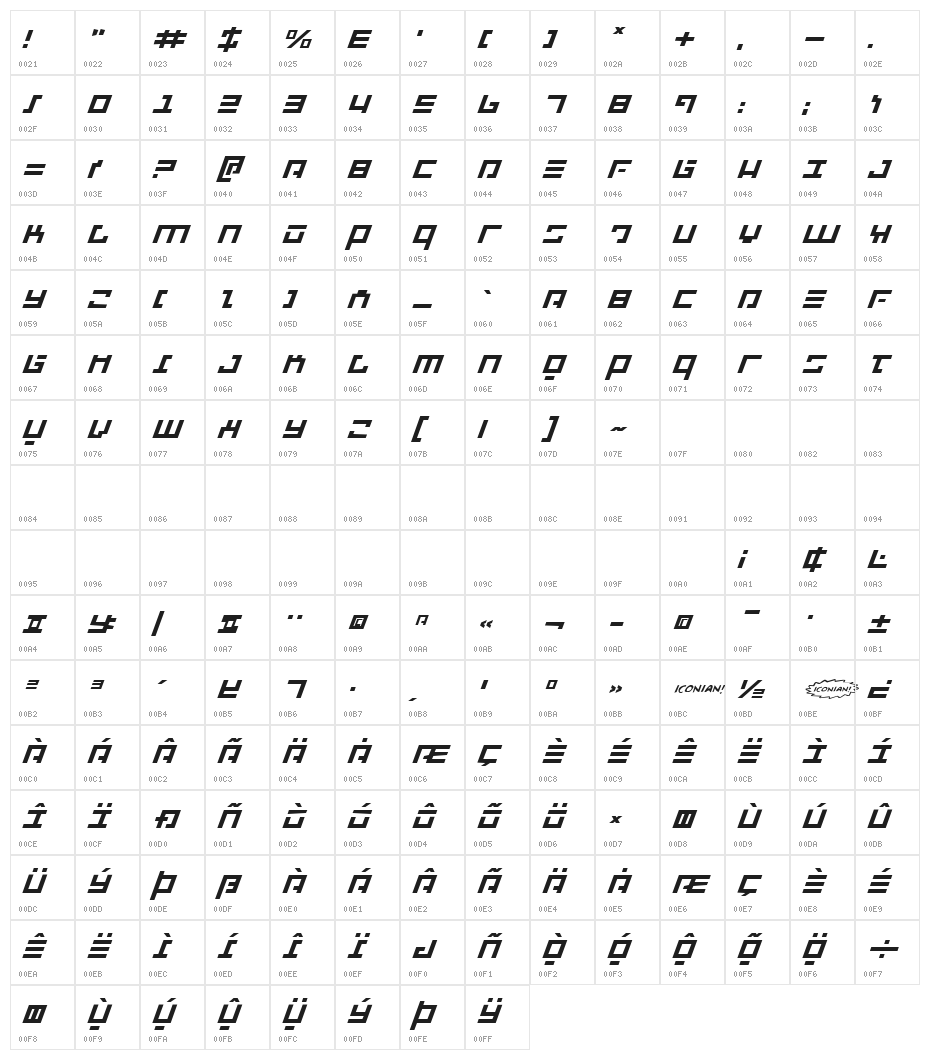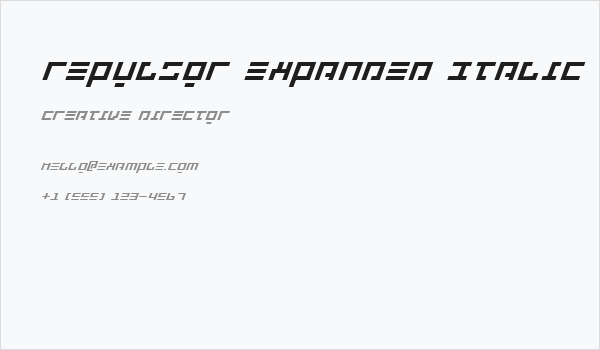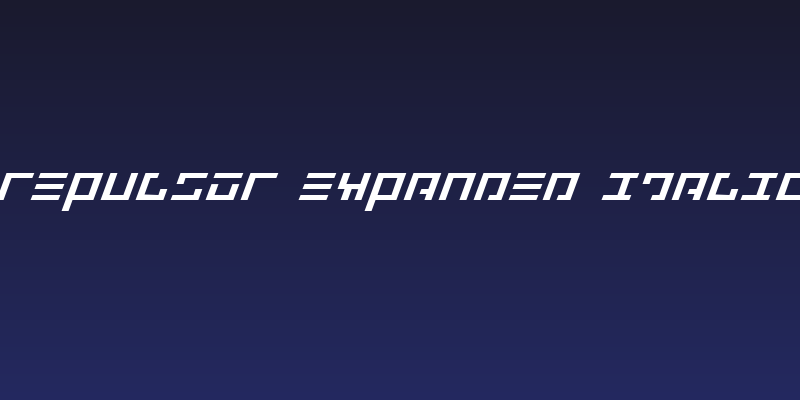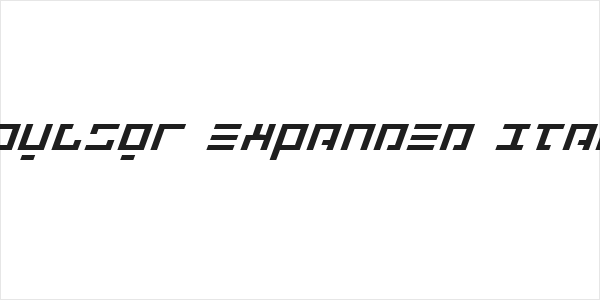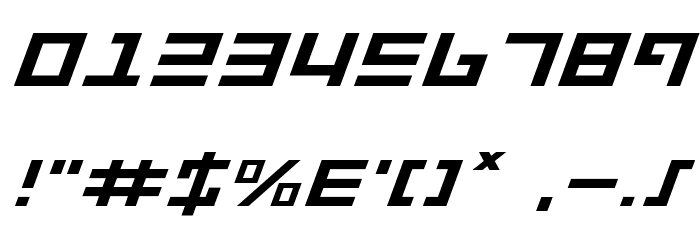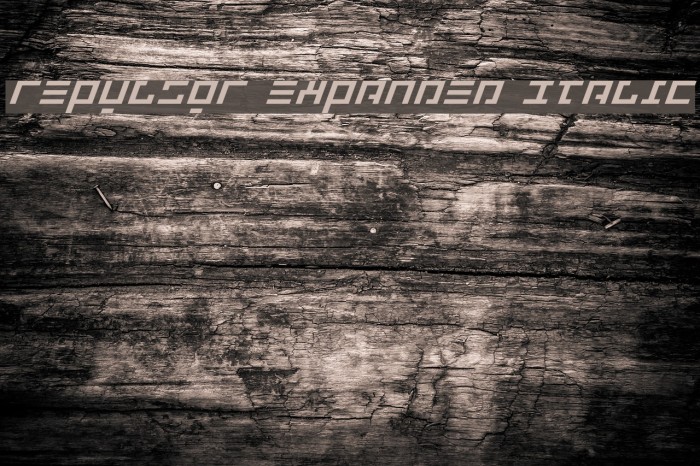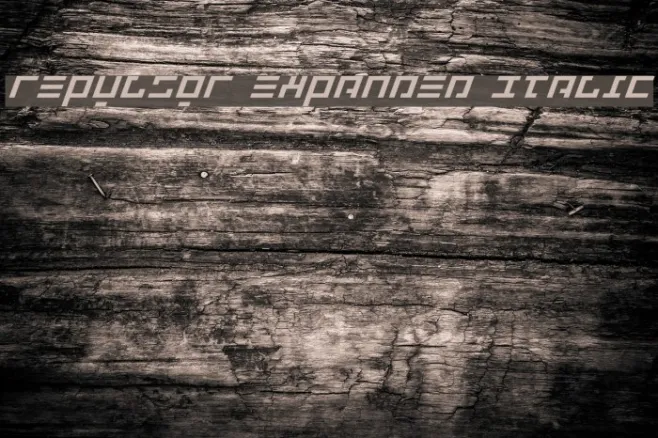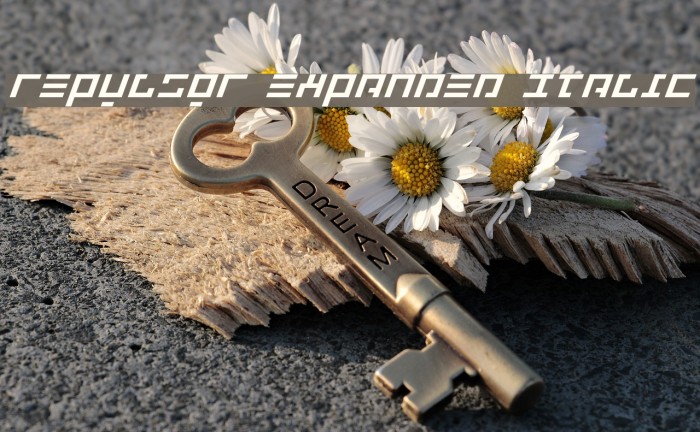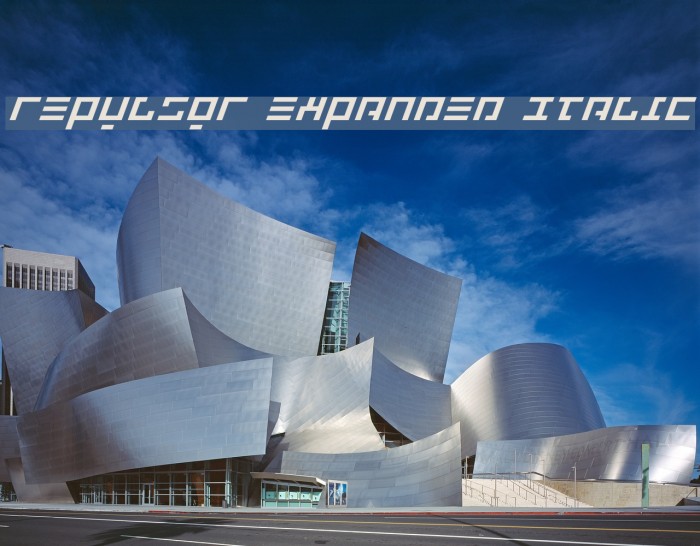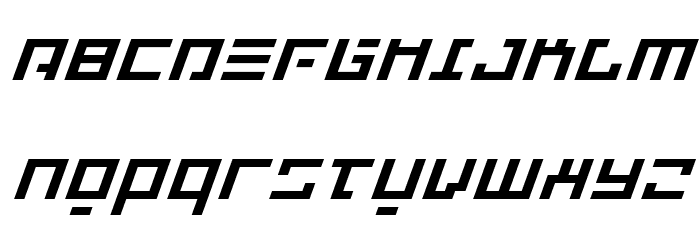
Repulsor Expanded Italic Font
Repulsor Expanded Italic Description
This font features a bold, futuristic design with an expanded width and italic slant, giving it a dynamic and forward-moving appearance. The characters are constructed with sharp angles and geometric shapes, creating a sense of speed and modernity. The uppercase and lowercase letters maintain a consistent style, with the lowercase slightly smaller but equally impactful. The numerals and special characters follow the same angular and bold aesthetic, ensuring uniformity across all text elements. This font's unique style makes it ideal for projects that require a strong, modern, and tech-inspired look.
| Proposed Projects | Ideal for technology branding, sci-fi posters, video game titles, and modern advertising. |